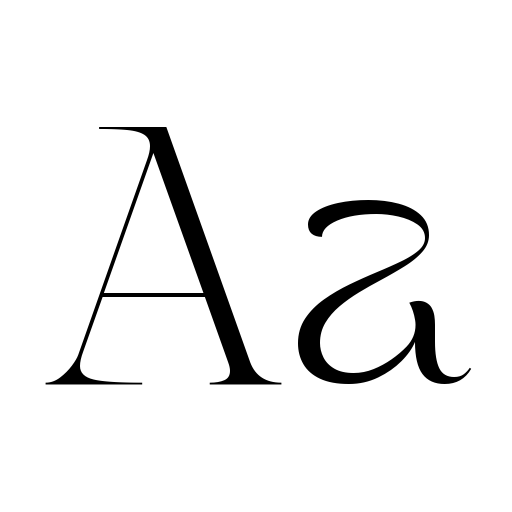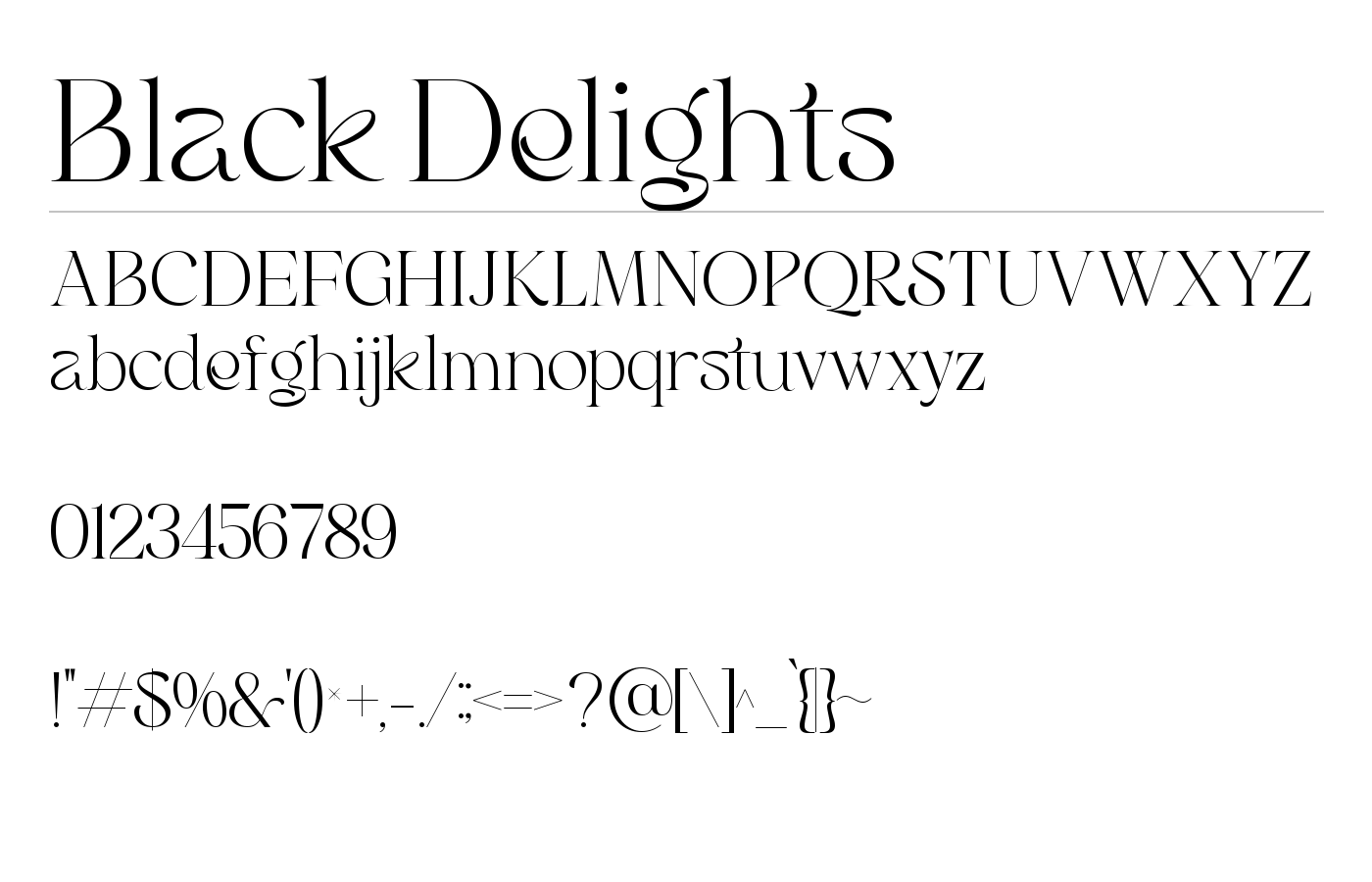
Black Delights is an elegant serif font with a refined, high-contrast design featuring thin, delicate strokes and exaggerated curves that lend a sophisticated and artistic flair. Its tall x-height, unique letterforms like the single-story ‘g’, and graceful serifs make it ideal for luxury branding, fashion editorials, and upscale headlines where a touch of classic charm and modern distinctiveness is desired. This font works best in contexts that require a stylish, poised appearance, adding a sense of exclusivity and refinement to any design.
Black Delights Font
About Black Delights Font
| Designer | Mokatype Studio 2K21 - Abdul Malik - Adriansyah |